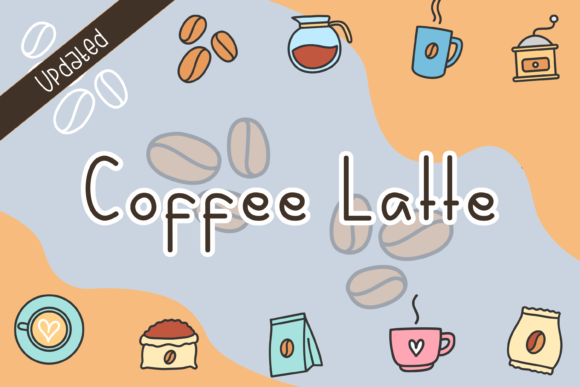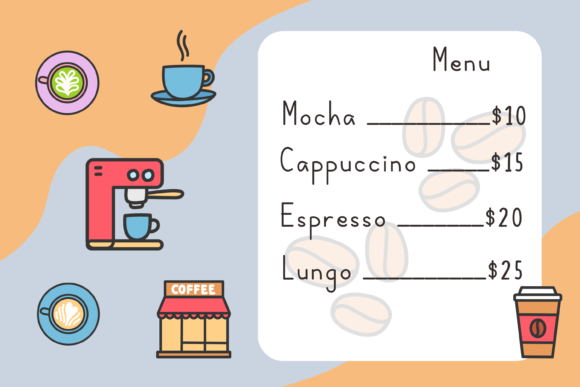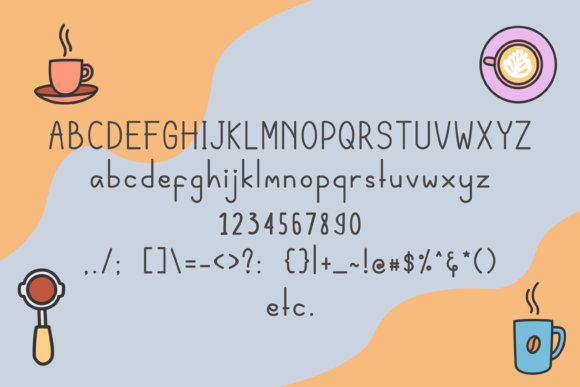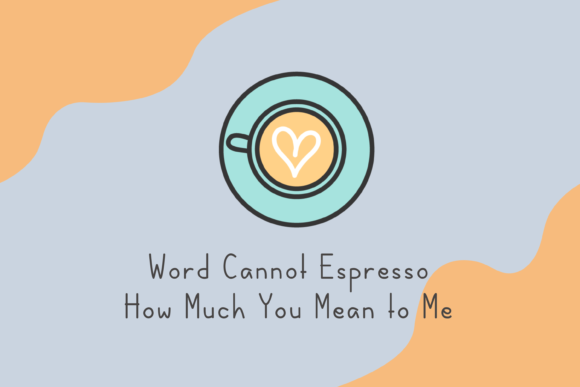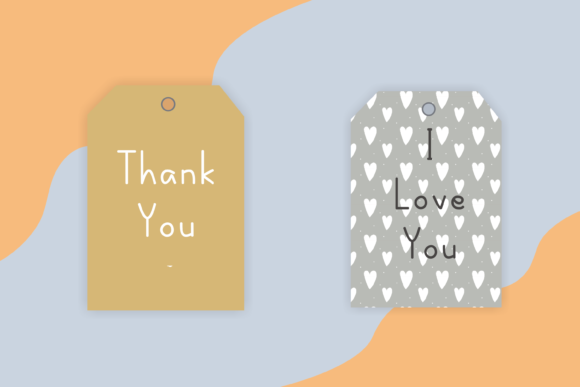
Coffee Latte Font
About Coffee Latte Font
Coffee Latte is a sweet and cute handwritten font. Add it to any design idea, either coffee or morning related and notice how your designs come alive!